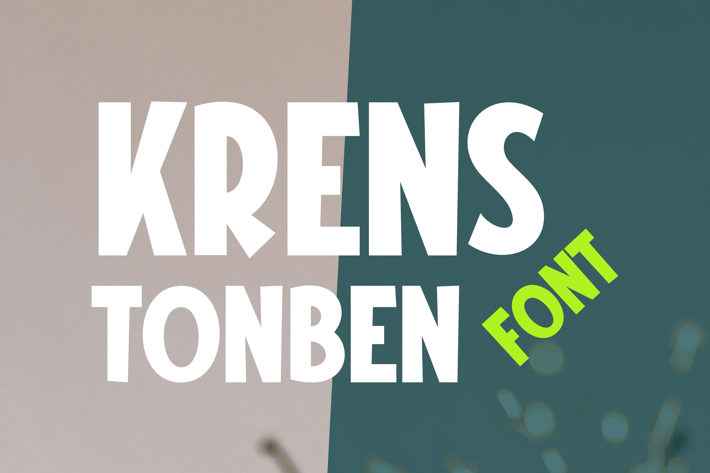
Krens Tonben Font
✨ Introducing "Krens Tonben" – The Font That Brightens Every Moment! ✨
Are you ready to add a cheerful touch to your designs? Krens Tonben is the perfect choice for fun occasions, games, Halloween editions, and parties!
🎉 Font Features:
Fun and Whimsical : Its unique characters will capture attention and bring smiles!\
Perfect for Halloween : Add a playful twist to your spooky themes!\
Ideal for Parties : Customize invitations, decorations, and more with unforgettable style!\
💡 Create Memorable Moments: Bring your projects to life with Krens Tonben. From party posters to game designs, this font is ready to shine!